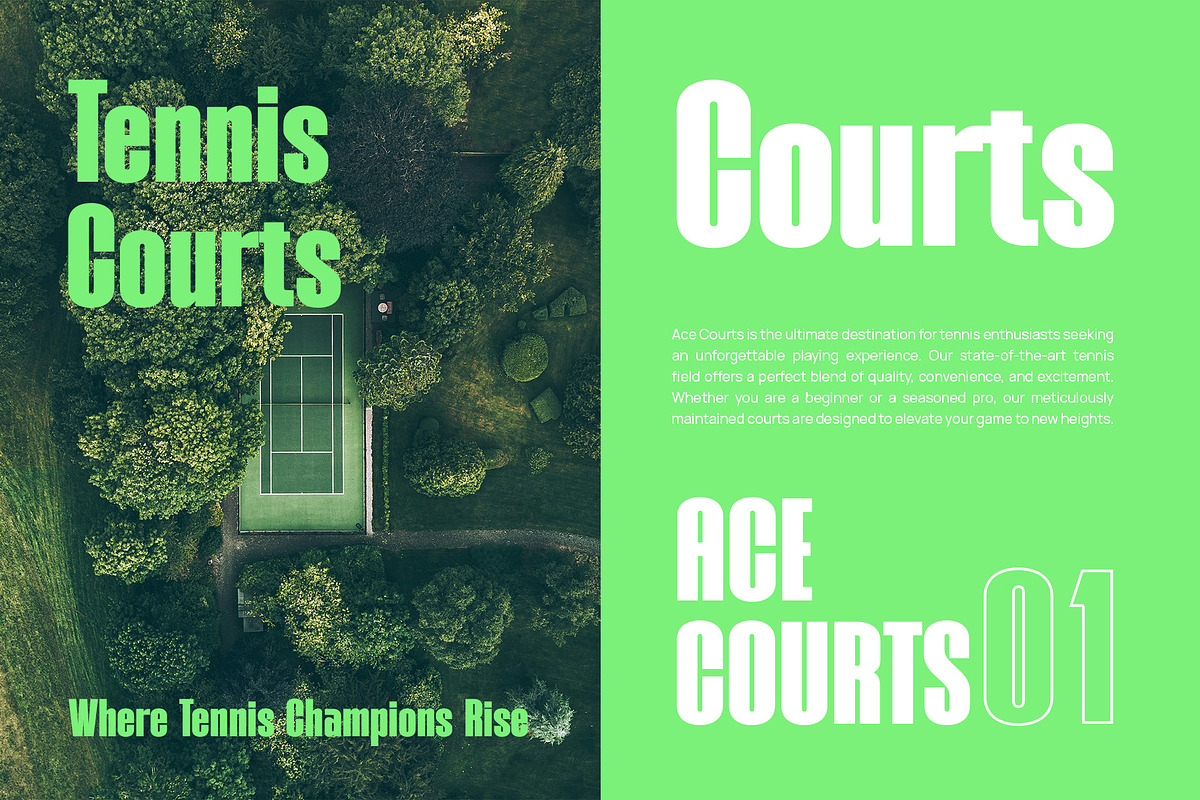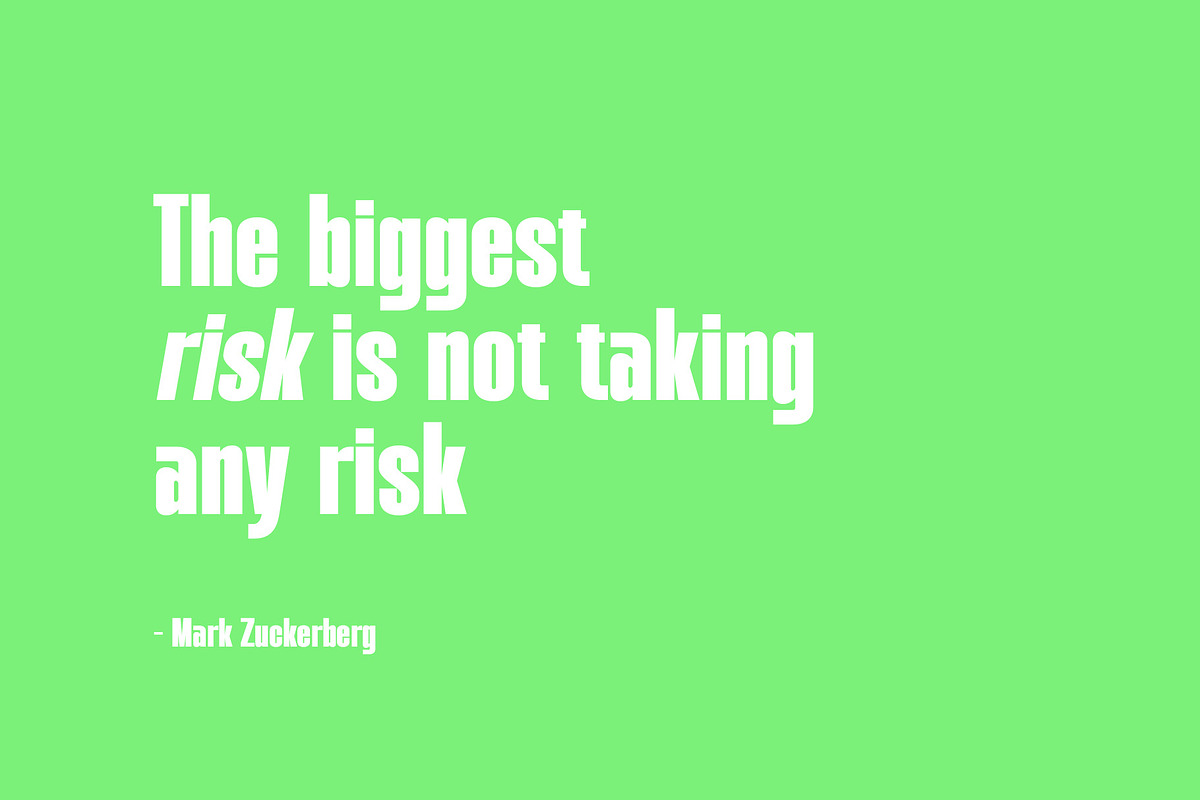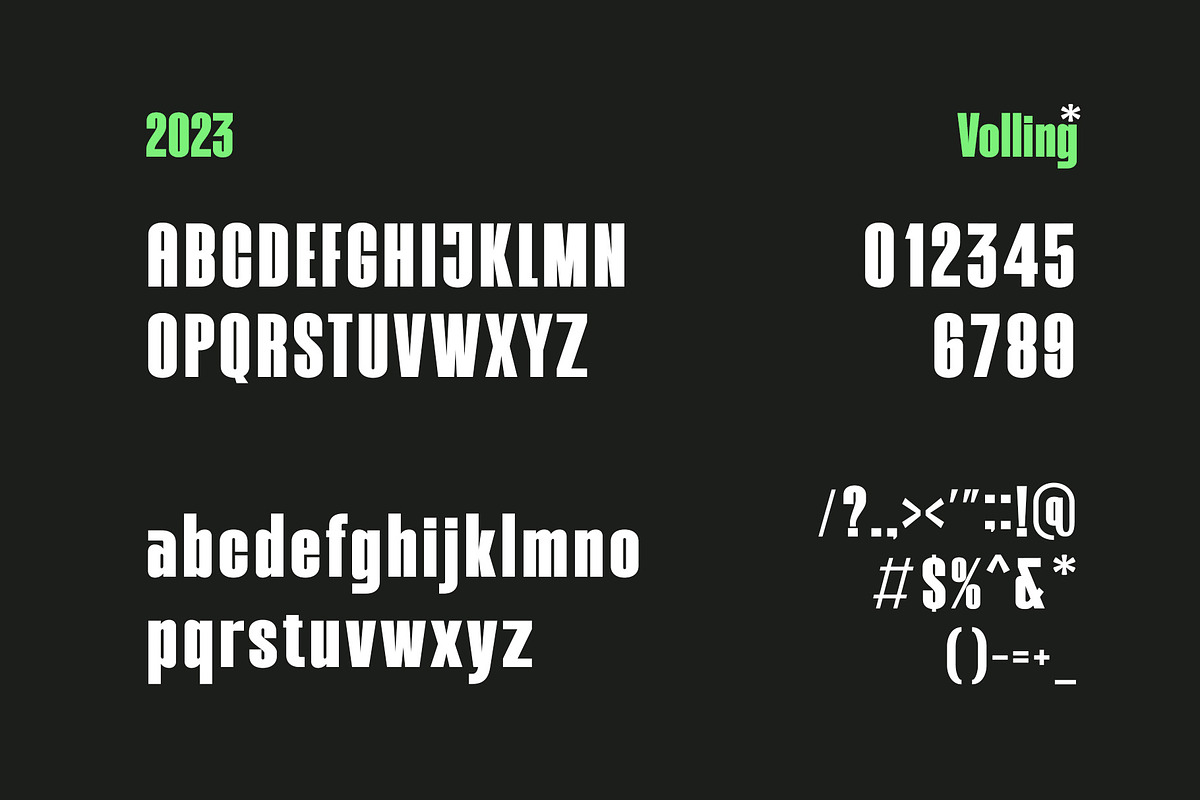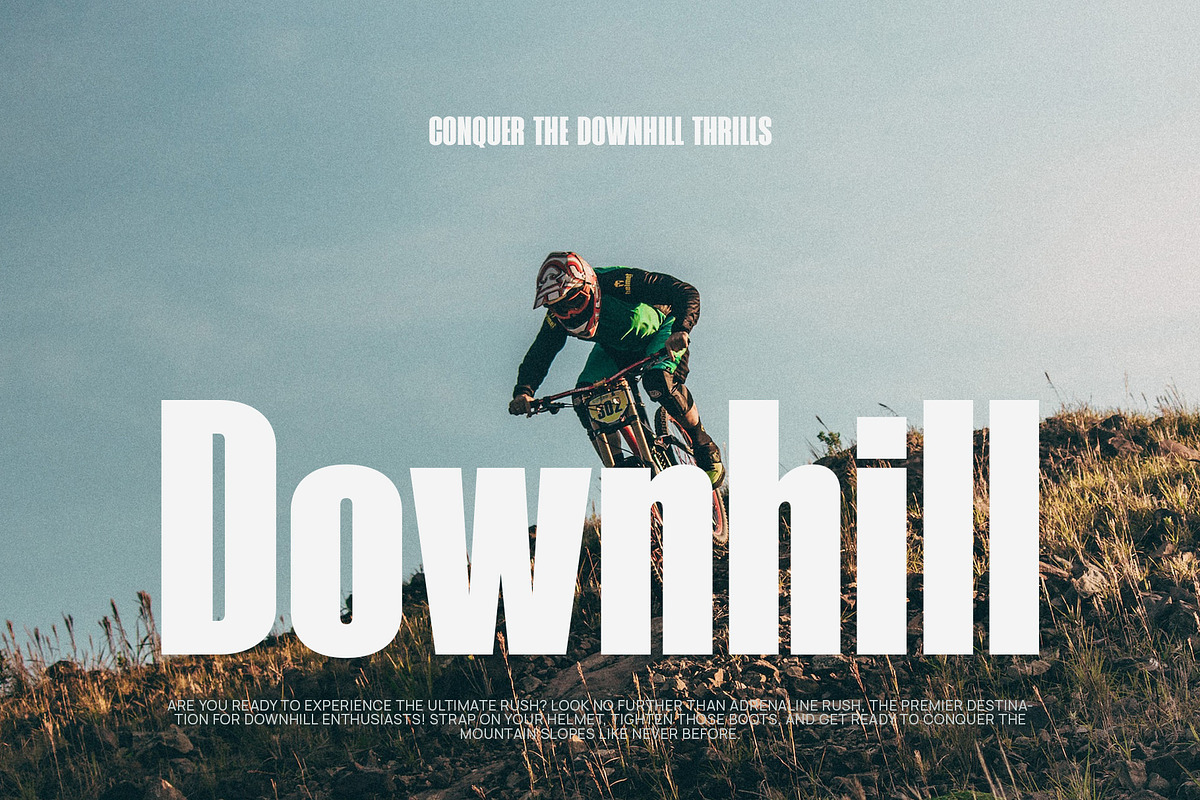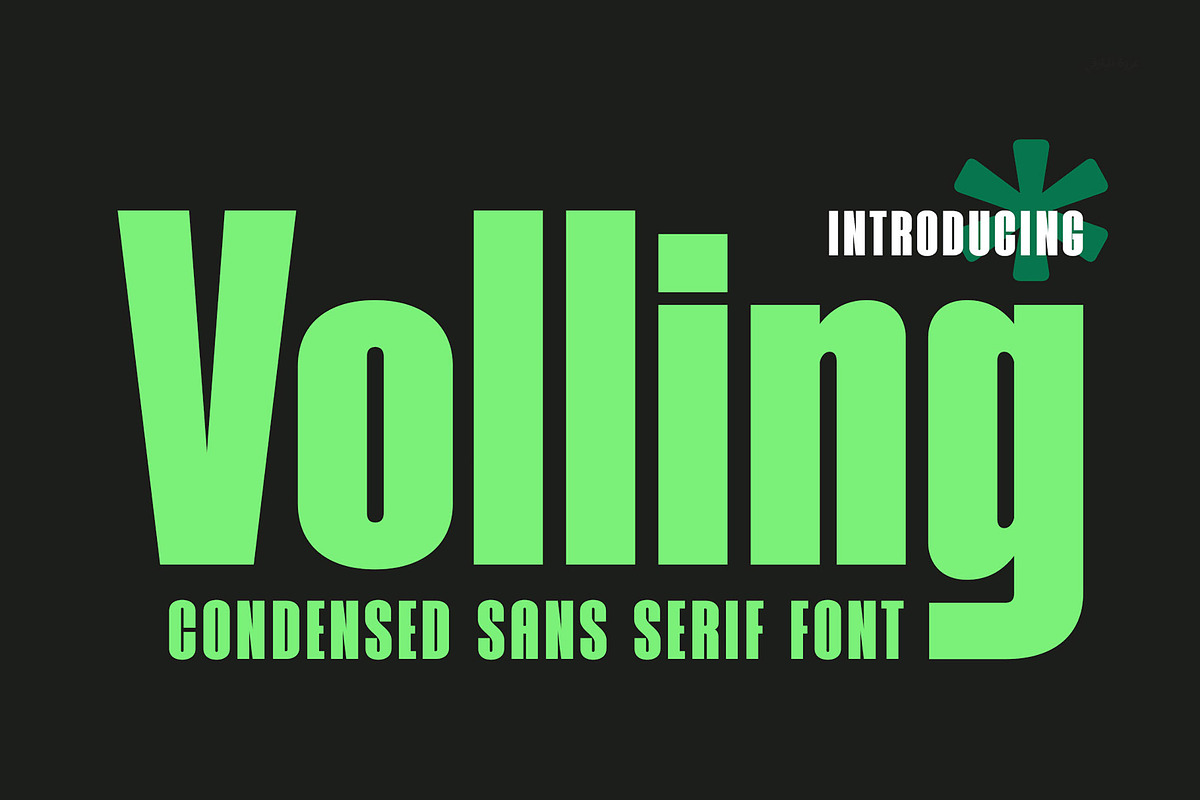
Volling - Modern Condensed Sans Seri
Volling - Modern Condensed Sans Serif
Introducing our new Volling, modern sans serif font with elegant style this is perfect for branding, logos, invitation, magazines, product packaging and more.